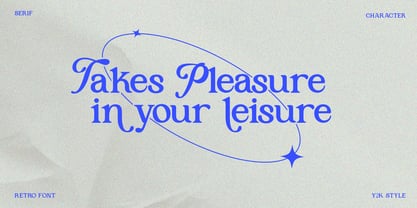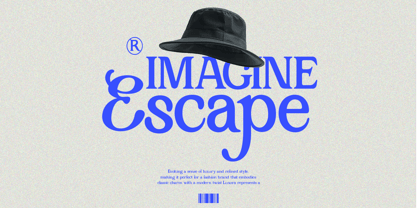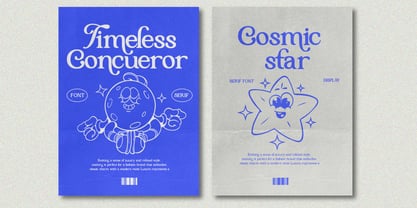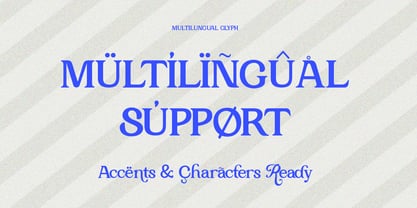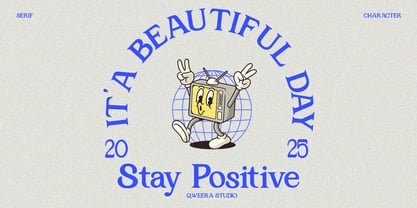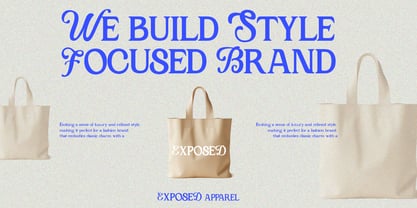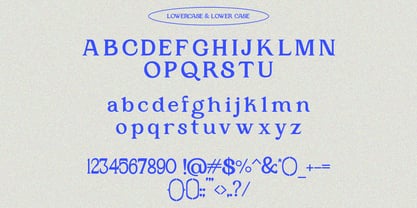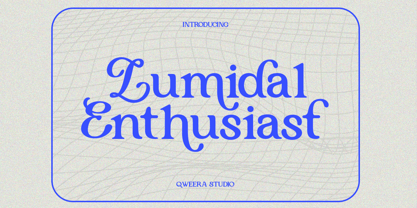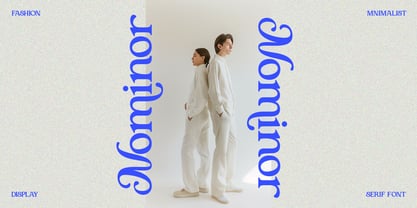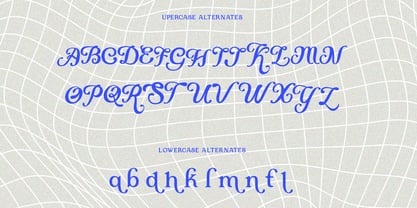
Lumidal
by Qweera Studio
The Lumidal Font Family was designed by Idhham Cholid Rikzano Yahya and published by Qweera Studio. Lumidal contains 2 styles and family package options.
Lumidal – Modern Luxury Serif Font with Heartfelt Elegance
Lumidal is more than just a font—it’s a celebration of passion, creativity, and love in modern typography. Inspired by the Greek ethos of pouring heart and soul into your work, this warm and human serif typeface brings depth, authenticity, and artistic dedication to your designs. With its thoughtfully crafted lines and curves, Lumidal is the perfect choice for projects that aim to convey sincerity, warmth, and luxury.
Where Modern Luxury Meets Heartfelt Design
Lumidal stands out with its unique blend of modern elegance and heartfelt character. Its special uppercase letters and exquisite alternates add a touch of personality and sophistication, making it ideal for high-end branding, editorial design, and luxury packaging. Whether you’re crafting a logo, designing a magazine layout, or creating a heartfelt invitation, Lumidal ensures your work radiates warmth and authenticity.
Key Features
• Modern Luxury Serif Design – Perfect for high-end branding, editorial projects, and luxury packaging.
• Regular & Italic Versions – Versatile options for a variety of design needs.
• Warm & Human Aesthetic – Thoughtfully crafted lines and curves that add depth and character.
• Special Uppercase Letters – Adds a unique touch of personality and feeling to your designs.
• Exquisite Alternates & Ligatures – Enhance creativity and individuality in your projects.
• Multilingual Support – Compatible with over 20 languages, including English, French, German, Spanish, and more.
Elevate Your Designs with Lumidal isn’t just a font—it’s a heartfelt expression of modern luxury and artistic dedication. Whether you’re designing for print, digital, or branding, this font ensures your work stands out with warmth, authenticity, and sophistication.